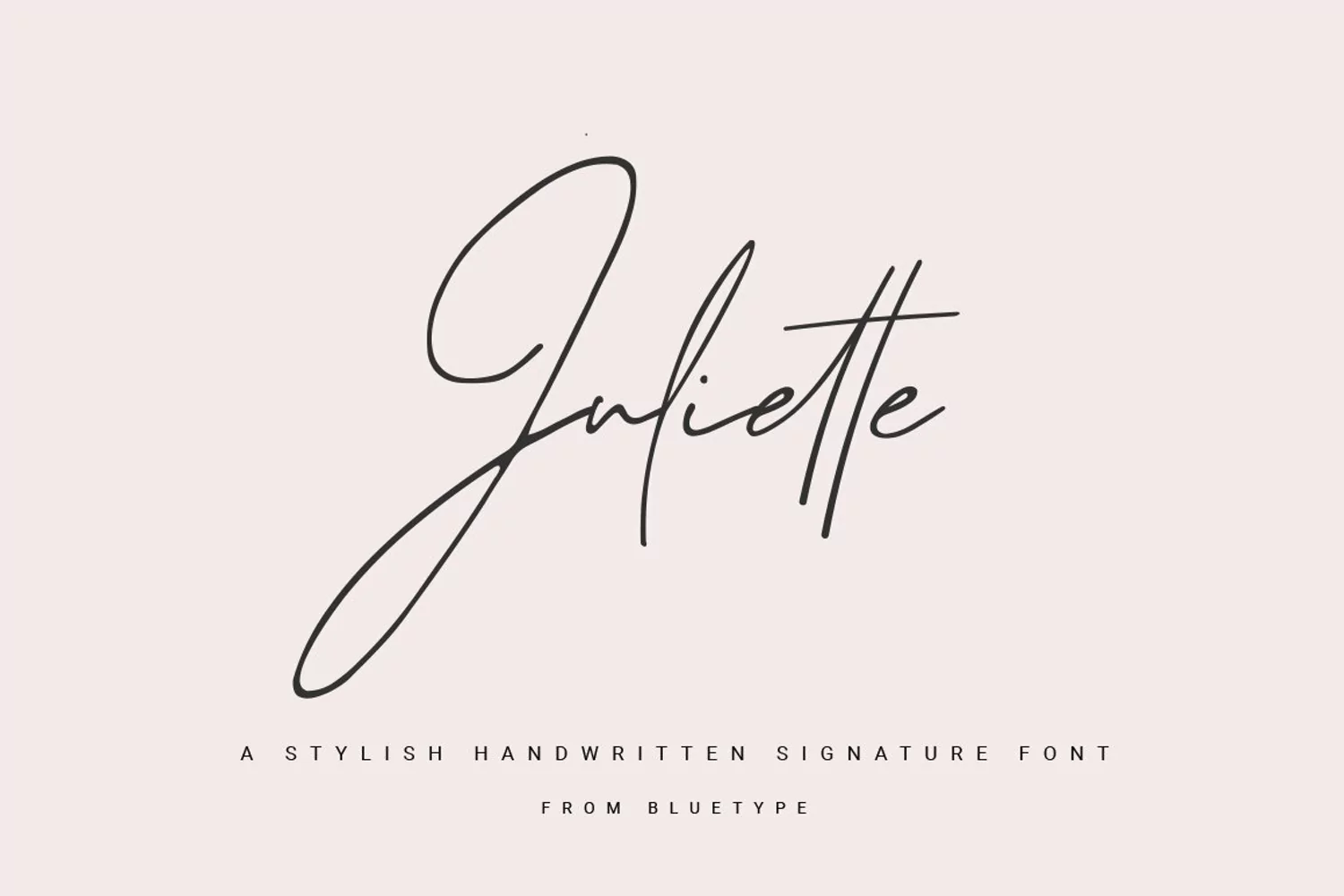
Juliette is a sophisticated handwritten signature font. Stylish, yet natural and simple, Juliette is the perfect font choice for logos, branding, social media, feminine designs and more. With Juliette's natural refined style you can create elegant products or designs without appearing stuffy. Juliette makes it easy to elevate your work!